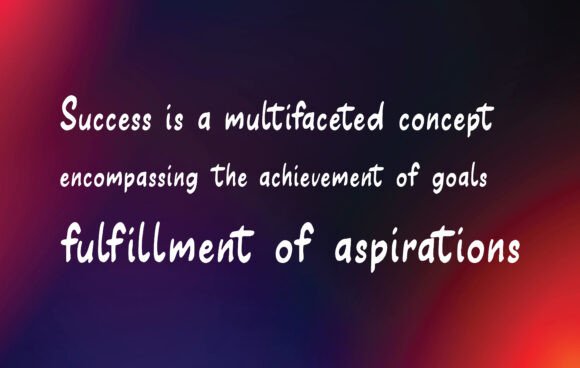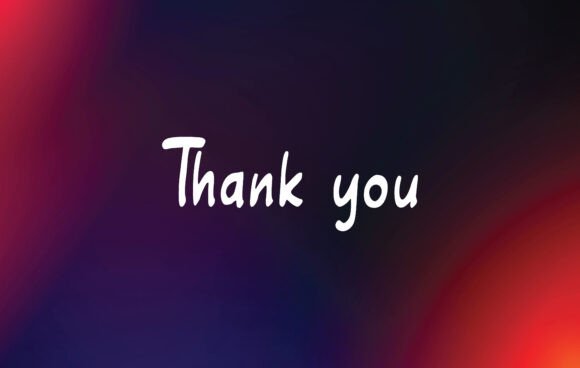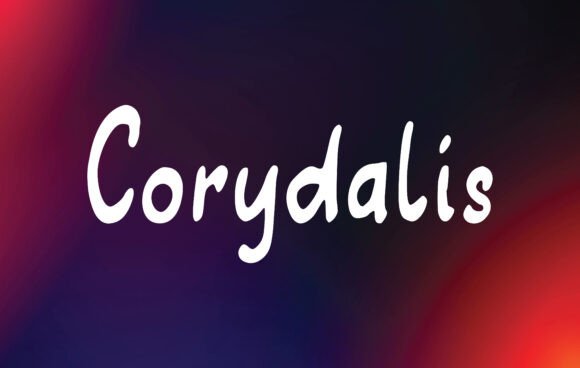
Corydalis Font: Elevate Your Creative Projects with Elegance
In the world of typography, fonts play a crucial role in bringing creative ideas to life. Among the numerous fonts available, Corydalis stands out as a lovely and beautiful handwritten font that has the potential to take your projects to the highest level. Whether you’re a designer, crafter, or simply someone looking for a unique touch, Corydalis is an excellent choice for creating eye-catching logos, branding, and quotes.
The Beauty of Corydalis
Corydalis is a carefully crafted handwritten font that exudes elegance and sophistication. Its flowing lines, delicate curves, and precise strokes make it a perfect choice for projects that require a touch of refinement. The font’s unique character set includes uppercase and lowercase letters, numbers, and punctuation marks, ensuring that you have everything you need to create stunning designs.
Why Choose Corydalis?
So, what makes Corydalis an ideal choice for designers and crafters? Here are a few reasons:
- Versatility: Corydalis is a versatile font that can be used for a wide range of projects, from logos and branding to quotes and social media graphics.
- Elegance: The font’s elegant and refined design makes it perfect for projects that require a sophisticated touch.
- Readability: Corydalis is highly readable, even at small sizes, making it an excellent choice for body text and captions.
- Uniqueness: With its unique character set and flowing lines, Corydalis stands out from other fonts, ensuring that your designs will be noticed.
Corydalis is a dream come true for designers and crafters who want to add a personal touch to their projects. Here are some ways you can use Corydalis to elevate your designs:
- Logos and Branding: Create stunning logos and branding materials that reflect your brand’s personality and style.
- Quotes and Posters: Add a touch of elegance to your quotes and posters with Corydalis’ flowing lines and delicate curves.
- Social Media Graphics: Stand out on social media with eye-catching graphics that showcase your creativity and style.
- Stationery and Invitations: Add a personal touch to your stationery and invitations with Corydalis’ beautiful handwritten design.
Tips for Using Corydalis
To get the most out of Corydalis, here are some tips to keep in mind:
- Experiment with Sizes: Corydalis looks great at various sizes, so don’t be afraid to experiment and find the perfect size for your project.
- Play with Colors: The font’s elegant design looks great in a variety of colors, so try out different color combinations to find the one that works best for your project.
- Mix and Match: Combine Corydalis with other fonts to create a unique and eye-catching design.
In conclusion, Corydalis is a beautiful and elegant handwritten font that has the potential to take your creative projects to the highest level. With its versatility, elegance, readability, and uniqueness, it’s the perfect choice for designers and crafters who want to add a touch of refinement to their designs. Whether you’re creating logos, branding, quotes, or social media graphics, Corydalis is sure to impress. So why wait? Give Corydalis a try today and see the difference it can make in your designs!